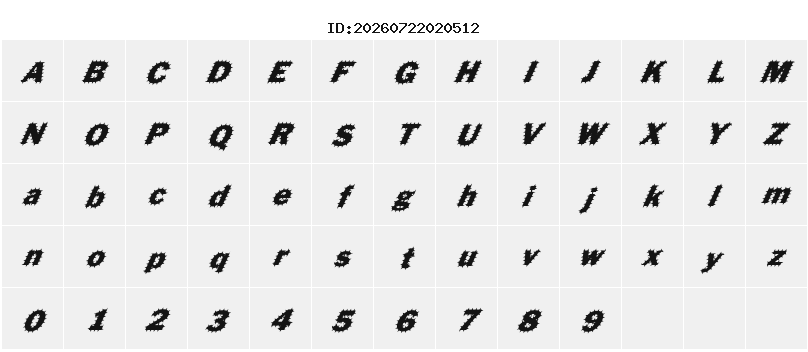
FZ BASIC 56 SPIKED ITALIC Preview
• Font Name: FZ BASIC 56 SPIKED ITALIC
• Full Font Name: FZ BASIC 56 SPIKED ITALIC
About FZ BASIC 56 SPIKED ITALIC.ttf
FZ BASIC 56 SPIKED ITALIC.ttf is a modern, elegant sans-serif font designed for ultimate readability and visual harmony. Perfect for branding, headlines, web design, and print materials.